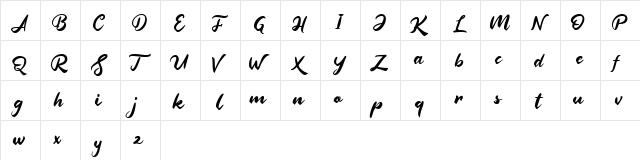
Nightland Regular
| Foundry | Lettersiro 2019 |
| Designer | Muhammad Sirojuddin - Jogjakarta |
Design Context for Nightland Typeface
Nightland is a composed and adaptable typeface that performs quietly and consistently across a wide range of design contexts.